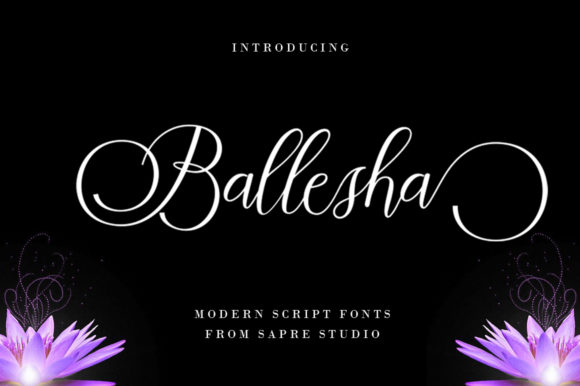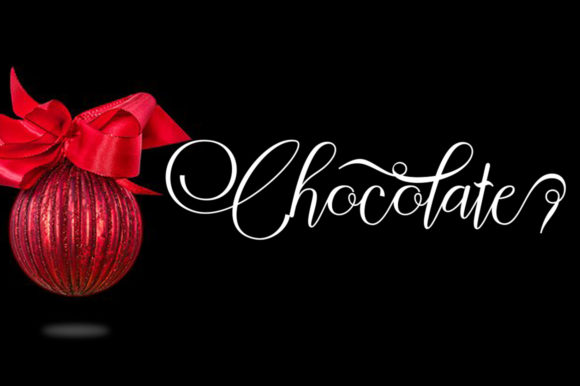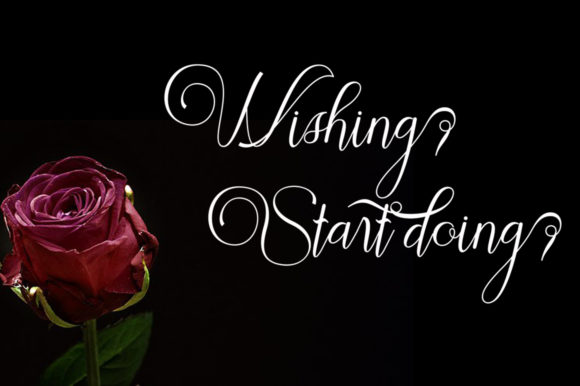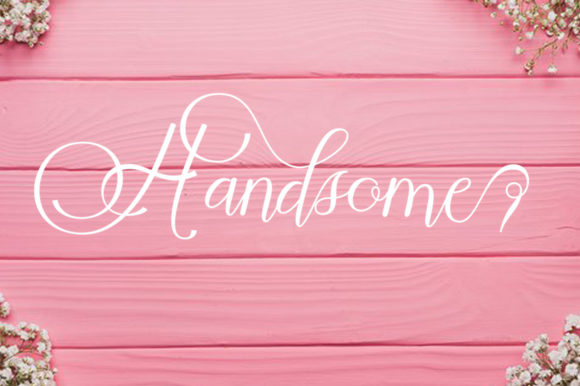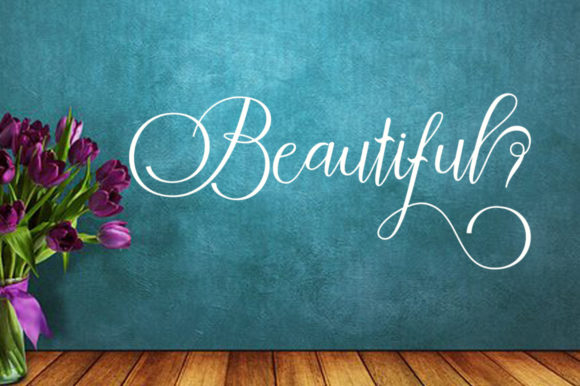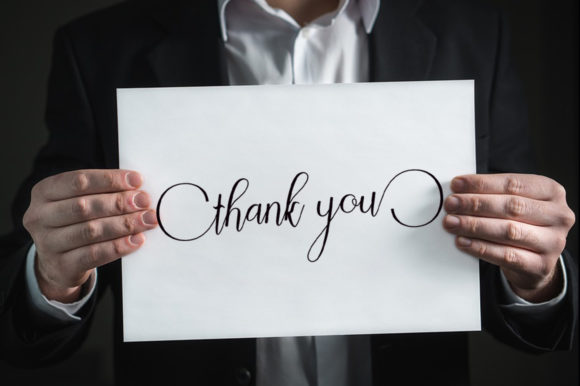
HomeScript FontsBallesha Font Script Fonts Ballesha Font FacebookXPinterestWhatsApp Ballesha Font Poster 2 Ballesha Font Poster 3 Ballesha Font Poster 4 Ballesha Font Poster 5 Ballesha Font Poster 6 About Ballesha Font The Ballesha is an elegant script font. It has various fine lines, which gives it an classic and modern touch. DOWNLOAD ON CREATIVE FABRICAThis font is sold and delivered by Creative Fabrica. Font Canyon may earn a commission if you buy through this link. People also explored No Parking JNL Font Bellish Font Love Story Font Picture Book Font Rifdatul Anam Font WARNING! Georgina Signature Font Baby Font Grumpys Font 409 0 TagsBallesha Font Previous articleKenshington FontNext articleBandrose Family Font LEAVE A REPLY Cancel reply Comment: Please enter your comment! Name:* Please enter your name here Email:* You have entered an incorrect email address! Please enter your email address here Website: Save my name, email, and website in this browser for the next time I comment. Personal Use Free Coolvetica Font Personal Use Free Read more about this font Sehat Selalu Personal Use Free Read more about this font ABC Personal Use Free Read more about this font Eric”s Personal Use Free Read more about this font BLOG Using Fonts in Digital Marketing: Tips to Strengthen Your Brand Identity In the realm of digital marketing, every visual element plays a crucial role in shaping a brand's identity, and fonts are no exception. The... How to Install and Use Fonts on Windows, macOS, and Web Projects Best Fonts for YouTube Videos: Make Your Thumbnails Stand Out Free Fonts Risk: Why Free Fonts Can Be Dangerous for Designers